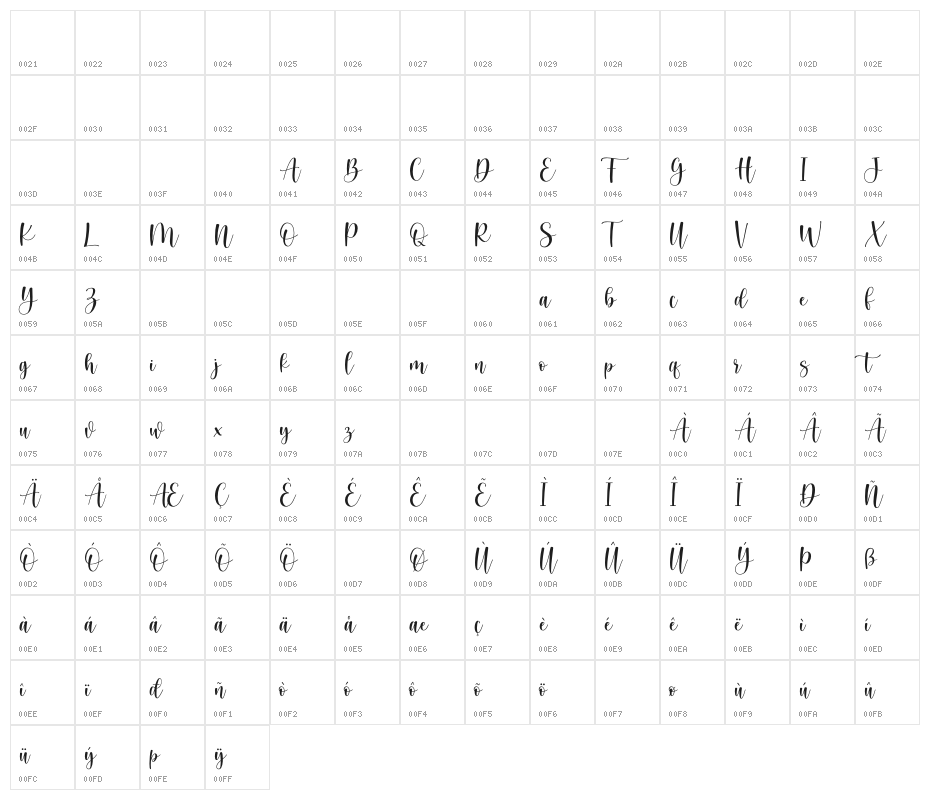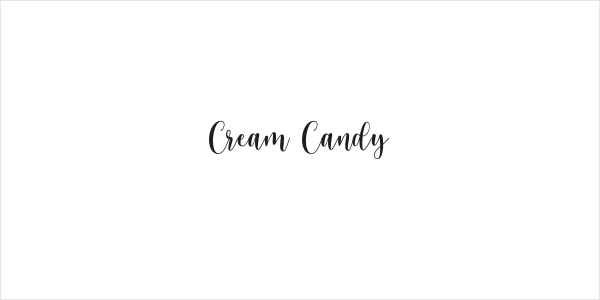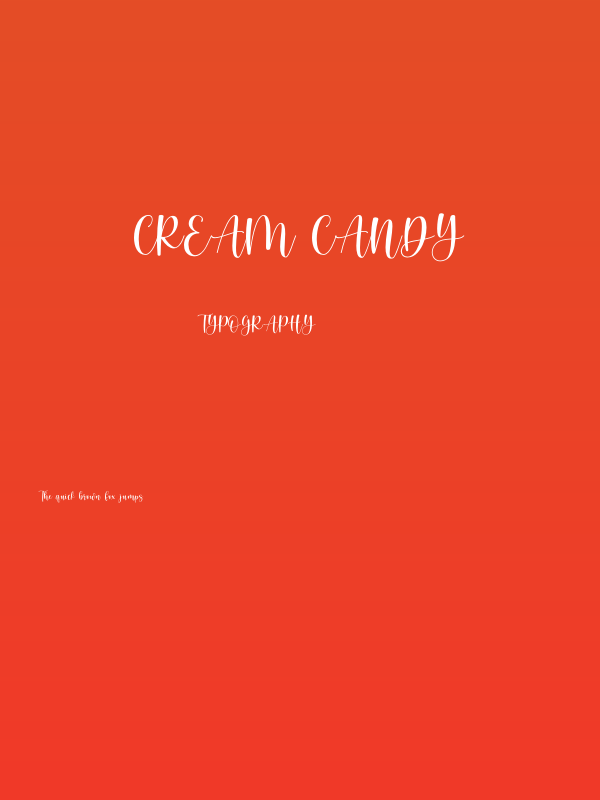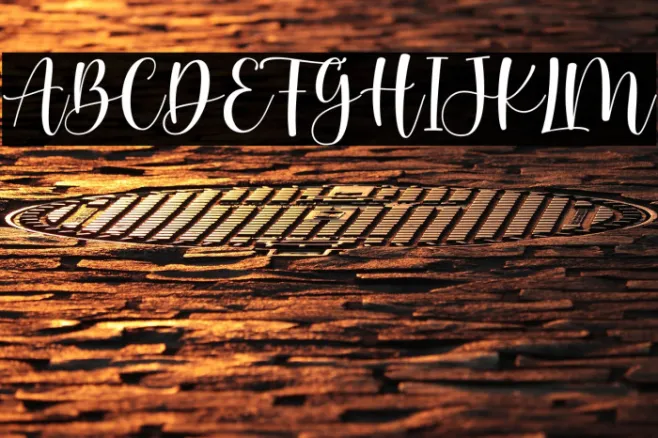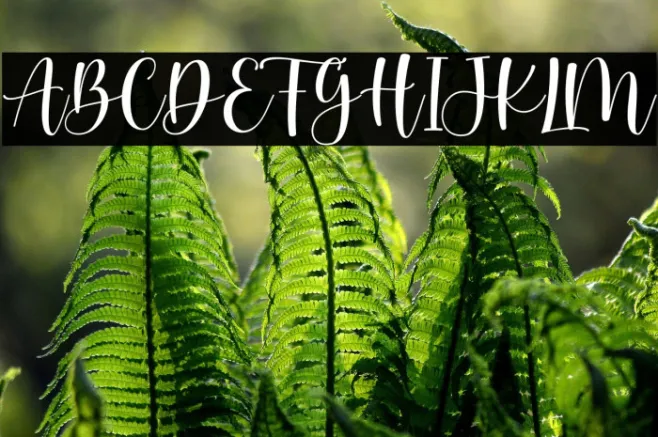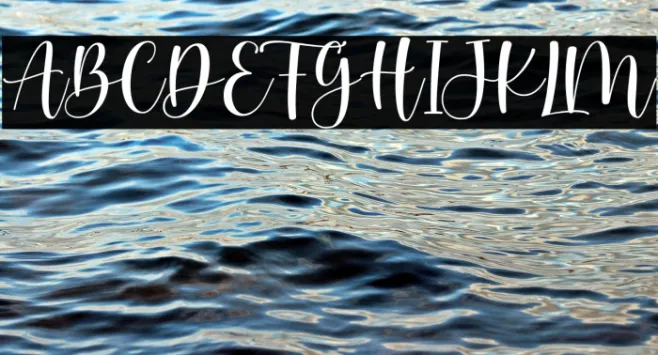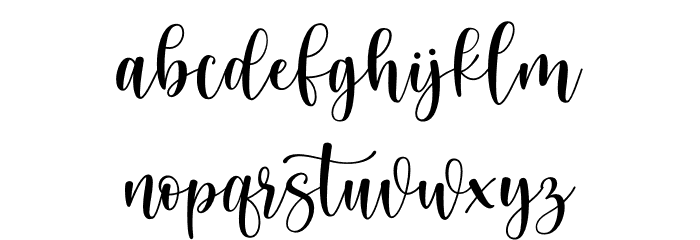
Cream Candy Font
Cream Candy Description
This elegant script font features a flowing, cursive style with a modern twist. The letters are characterized by their smooth, rounded forms and graceful loops, giving it a sophisticated yet approachable appearance. The uppercase letters are particularly ornate, with extended swashes and flourishes that add a touch of drama and flair. The lowercase letters maintain a consistent rhythm and balance, making the font easy to read while retaining its decorative charm. The overall design is versatile, suitable for a variety of creative projects where a personal, handwritten touch is desired.